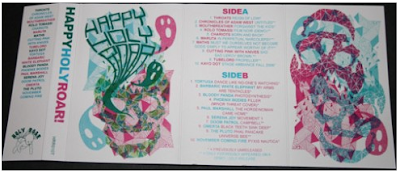
This is a cover design by Dan Reeves for Holy Roar Record's 010 Compilation Tape. The colors are awesome, the patterns are awesome, the typography is simple and really bold. I love this man. I love this record label's covers! -Nicole